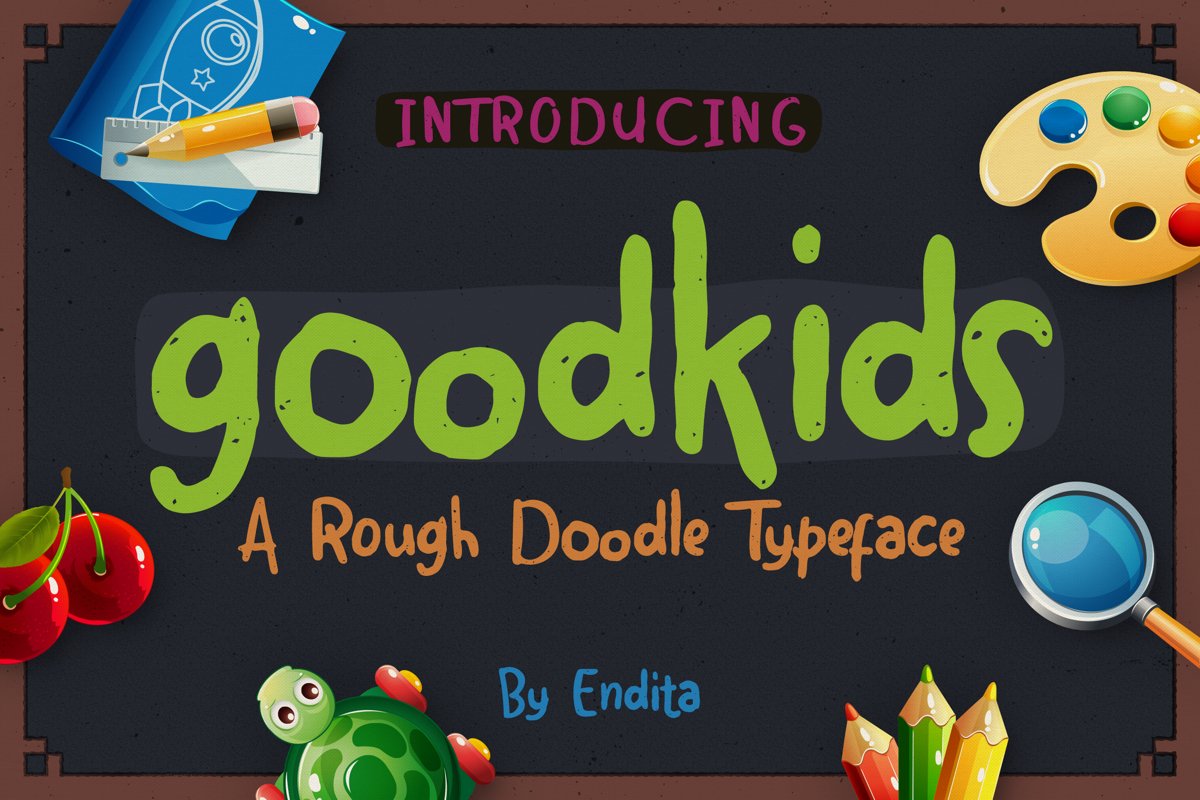
Goodkids
Goodkids-Rough
Goodkids is naturally made from by hand-lettered writing. It's perfectly suited for your any cute & educational stuffs!
• 218 Glyphs
• 30 Ligatures
• International languages